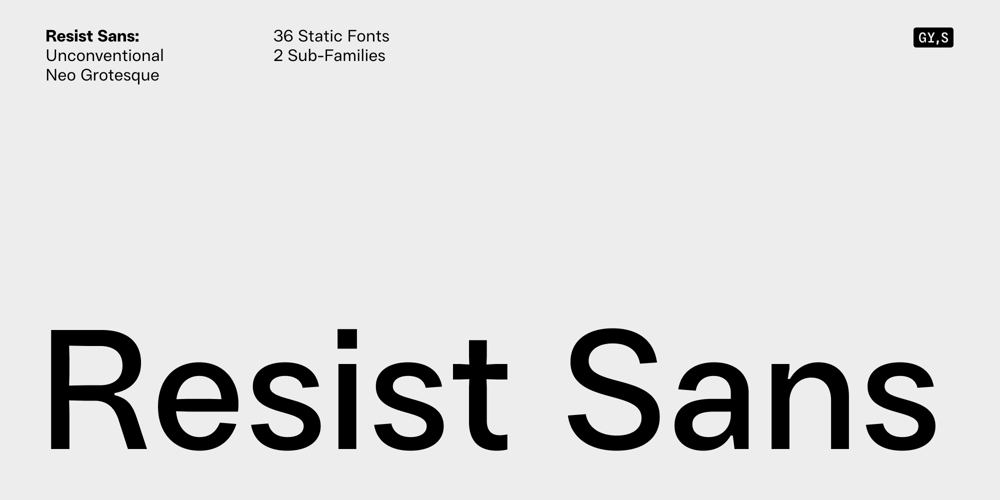
Resist Sans Font Family was designed by Eugene Tantsurin and published by Groteskly Yours. Resist Sans contains 50 styles and family package options. Resist Sans is a free-spirited sans serif type family that strikes a balance between the innate desire for revolt and a tendency towards uniformity. Resist Sans features a neutral, Swiss-inspired minimalist look and easily adapts to a wide range of design scenarios. It comes in 36 styles, with over 900 characters in each font.Resist Sans consists of two subfamilies (Display and Text) each serving different purposes yet remaining interchangeable and complementary in some cases. While Resist Display looks and feels like a classic sans-serif, Resist Text is equipped with deep ink traps and optical compensators, allowing it to shine at smaller sizes.Each of the two subfamilies of Resist Sans comes in 9 weights (Thin to Black) and is equipped with matching Obliques, which brings the total number of styles to 36. Each font contains 900+ glyphs, multiple OpenType features (Case-Sensitive Punctuation, Stylistic Alternates, etc.) and is carefully spaced and kerned.One of the standout features of Resist Sans is its extensive multilingual support. It accommodates most European and Latin languages and includes Extended Cyrillic, providing access to languages such as Serbian, Bulgarian, Ukrainian, Macedonian, Russian, and more.Resist Sans is designed with contemporary aesthetics in mind, making it a seamless fit for a range of design projects. From captivating web interfaces to dynamic social media graphics, its clean lines and modern look make it a versatile choice for both digital and print applications.